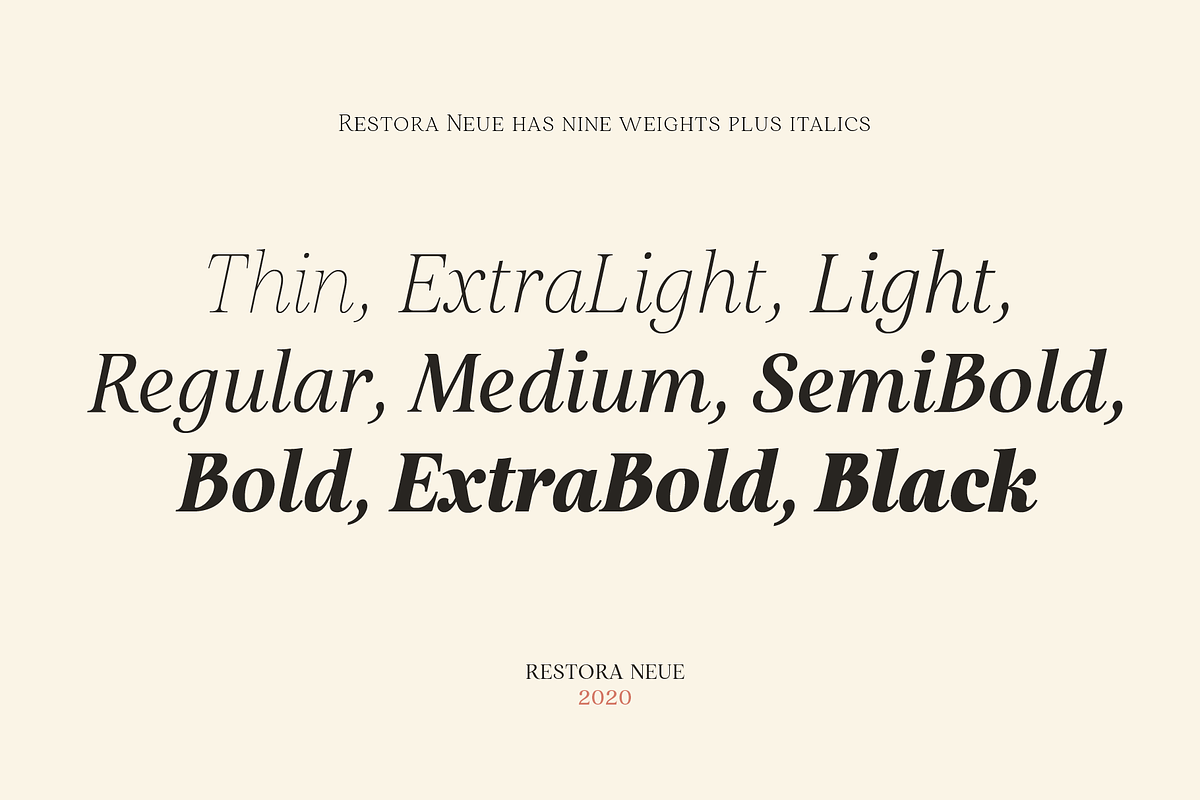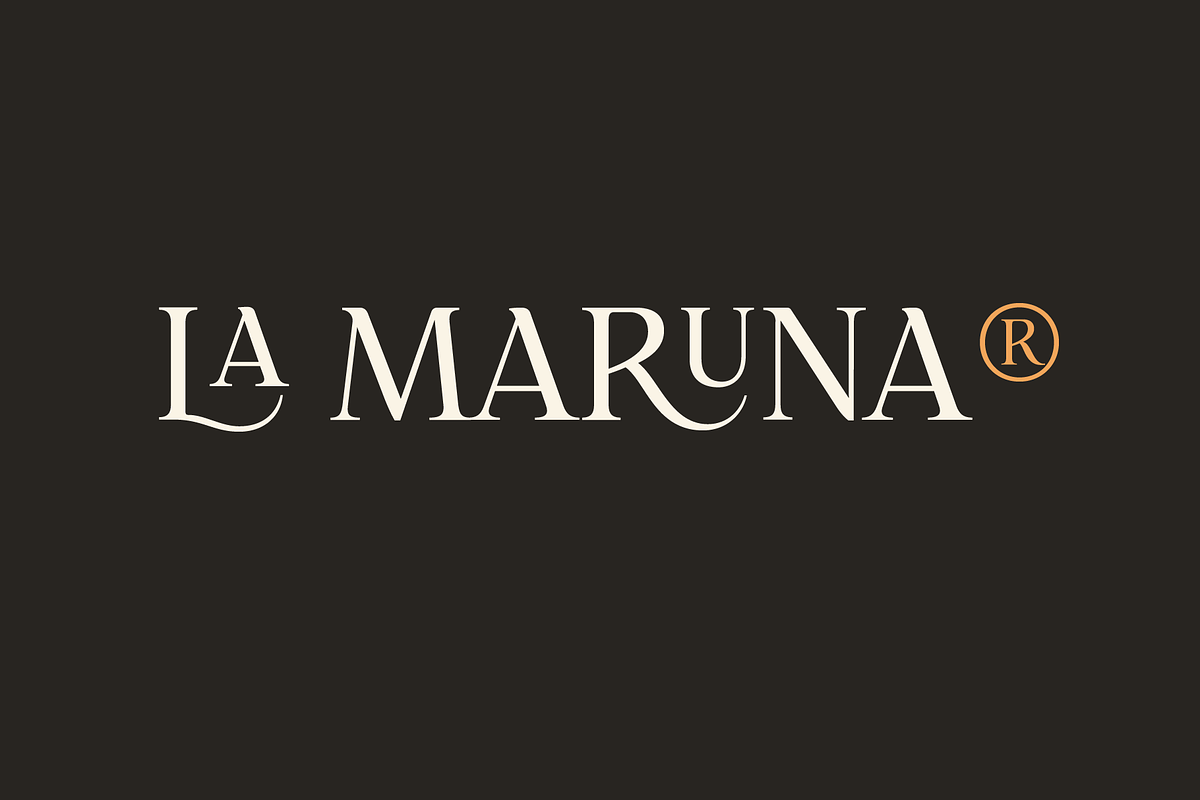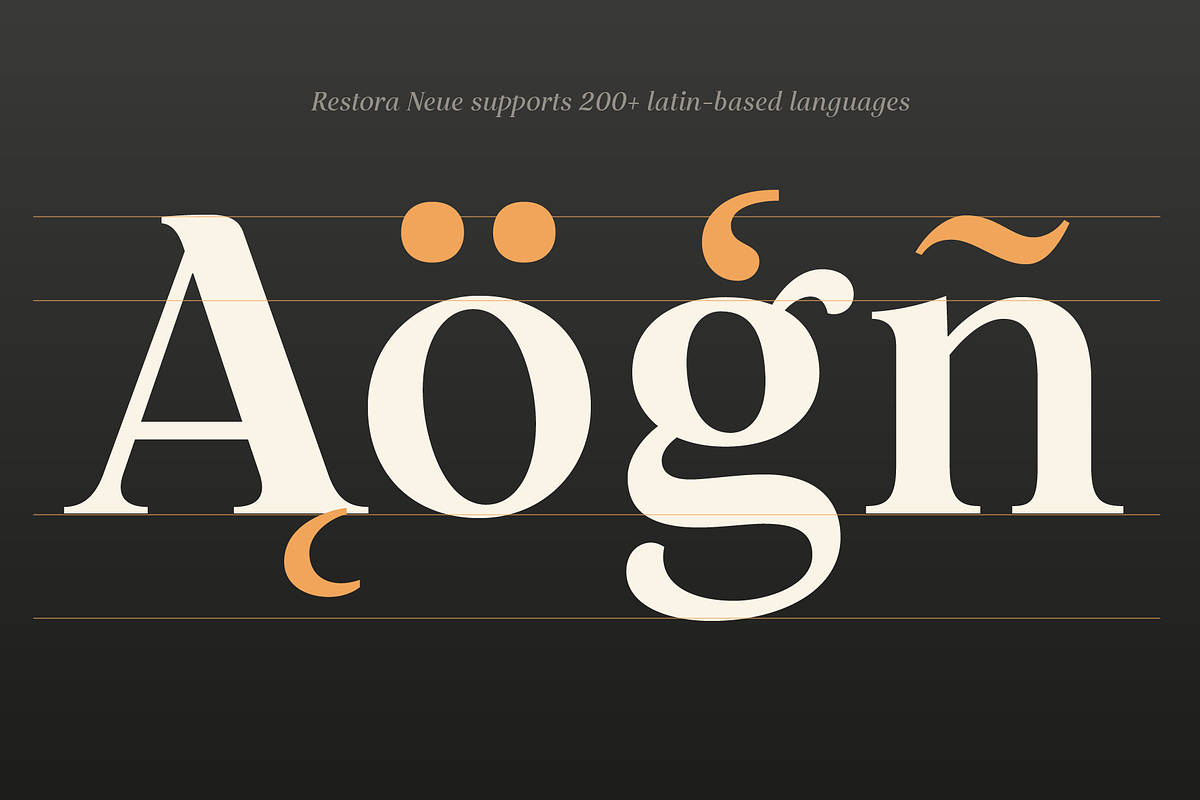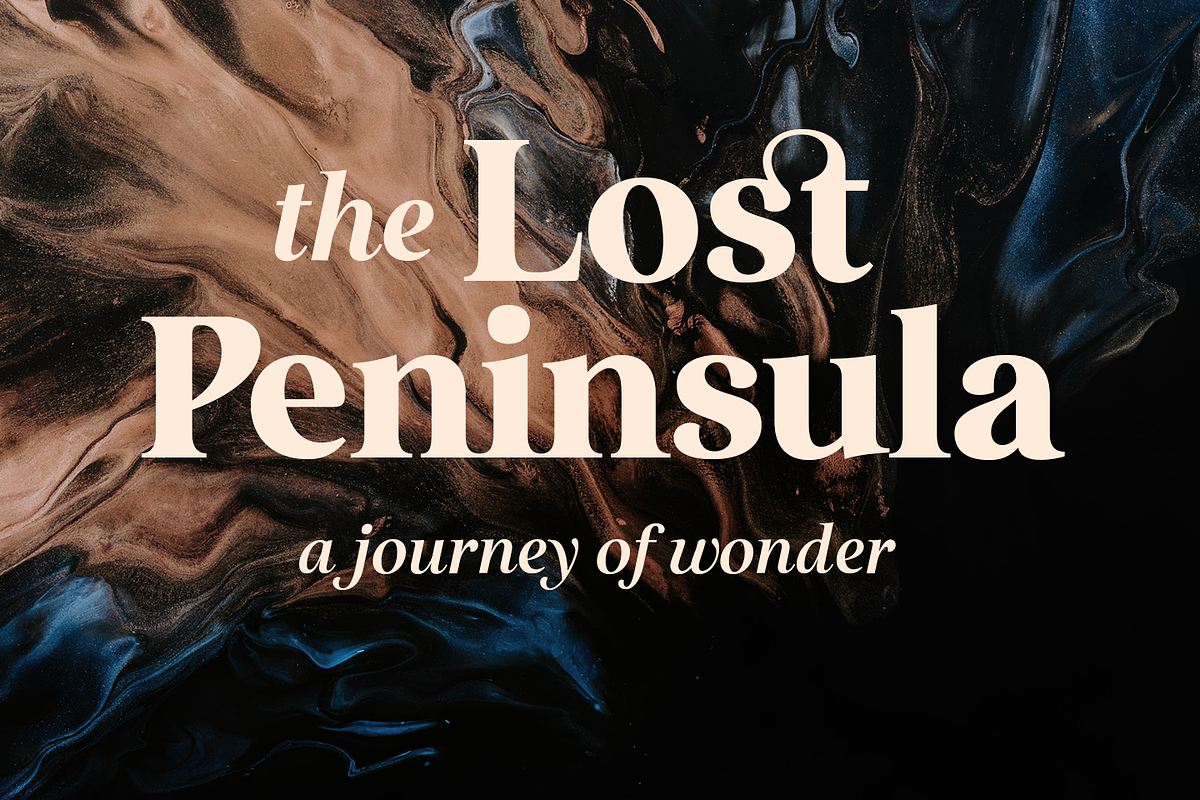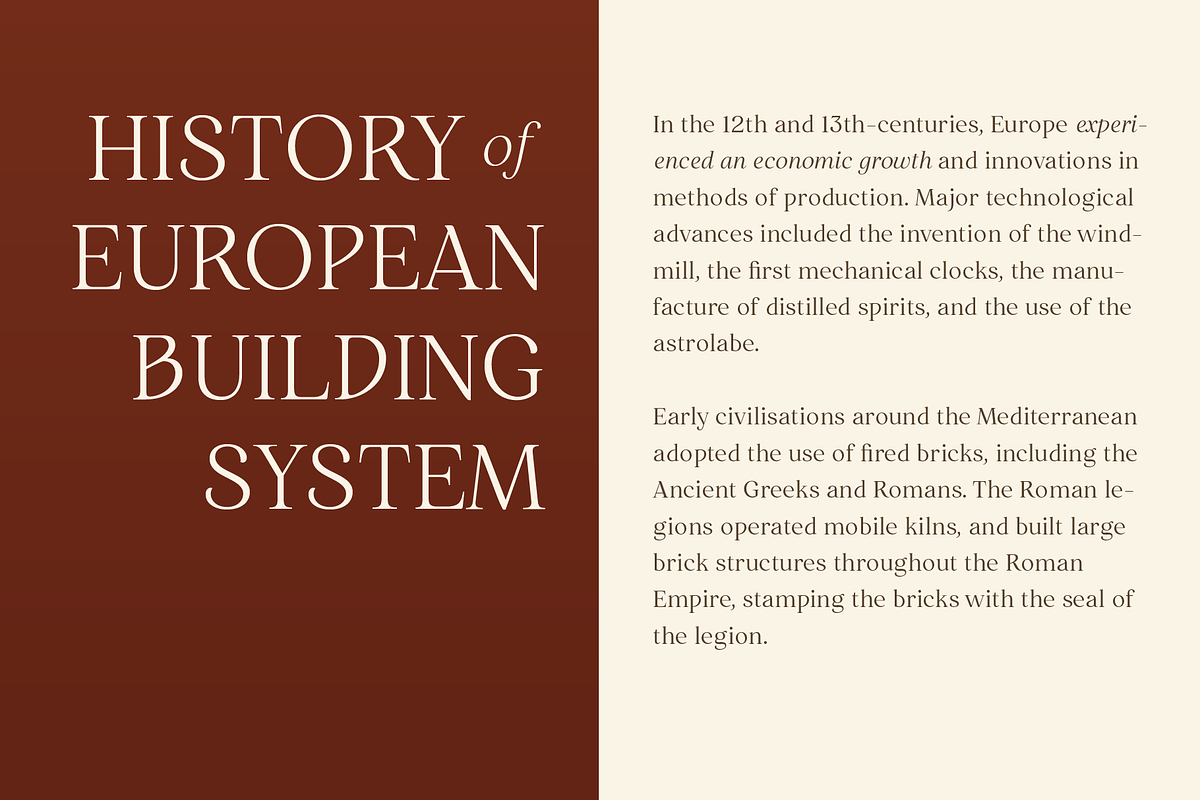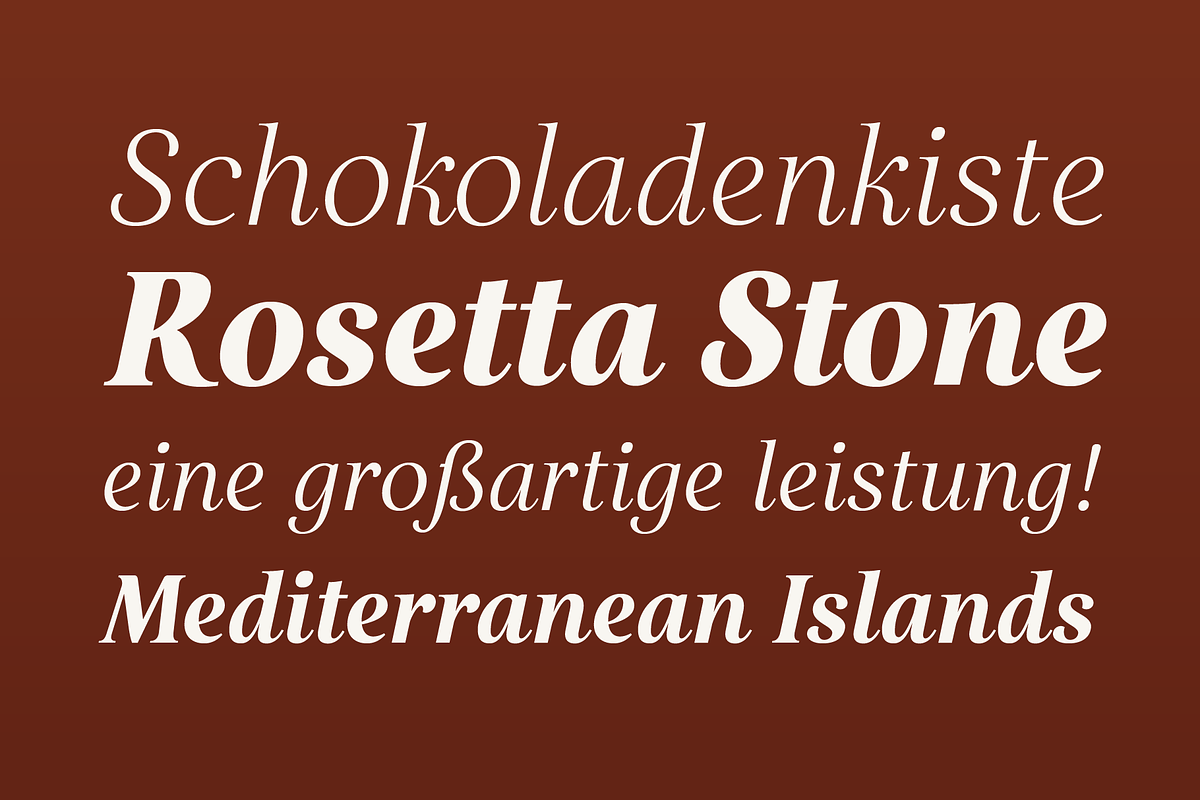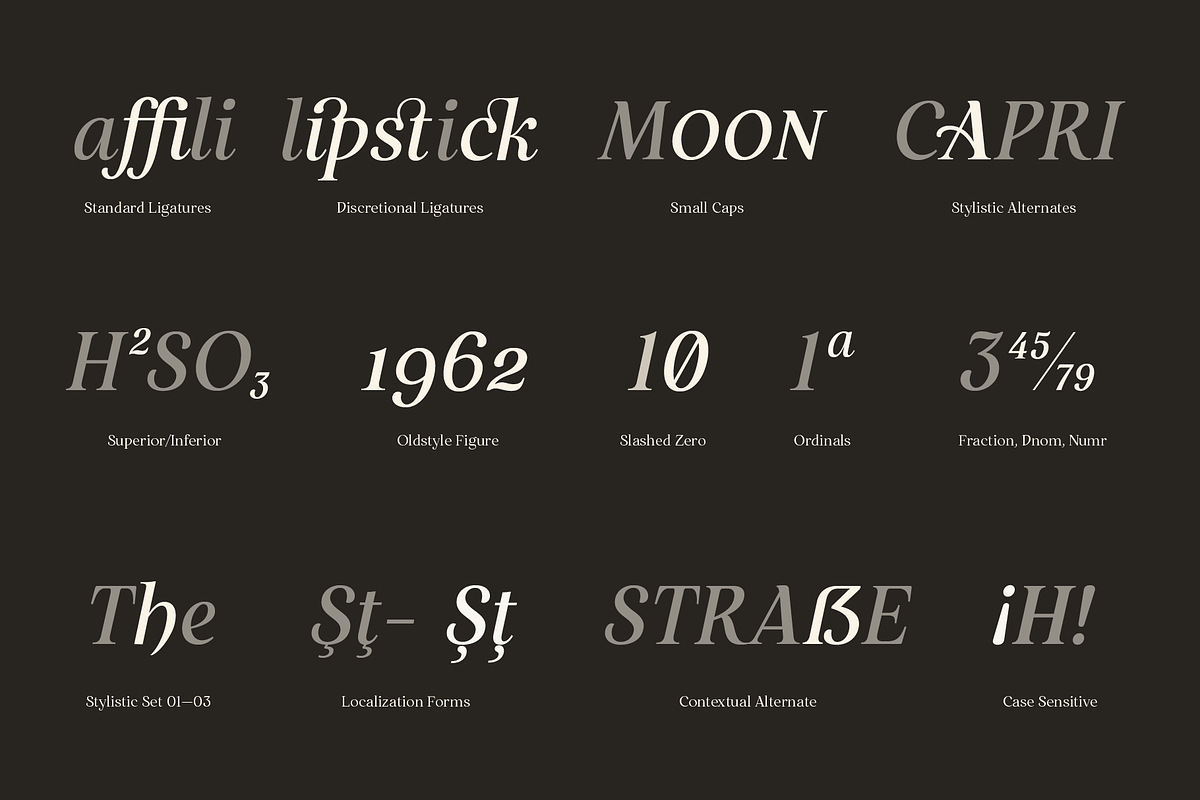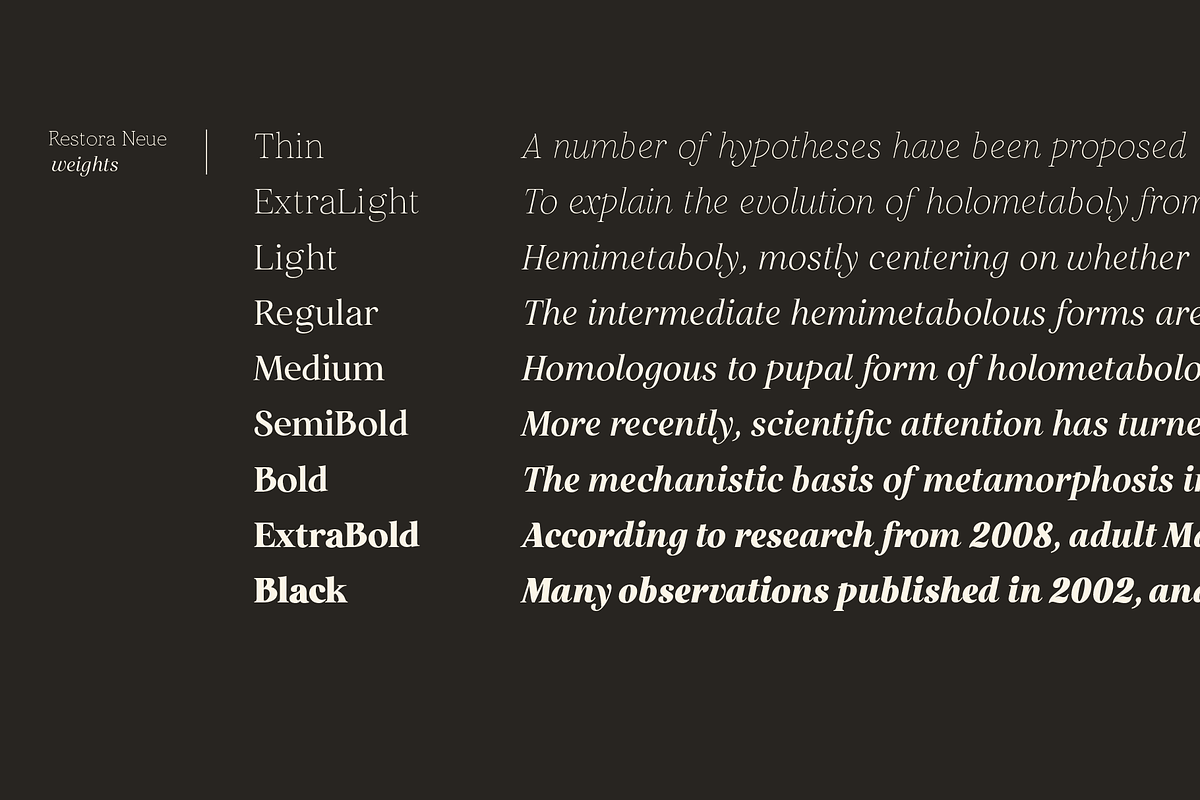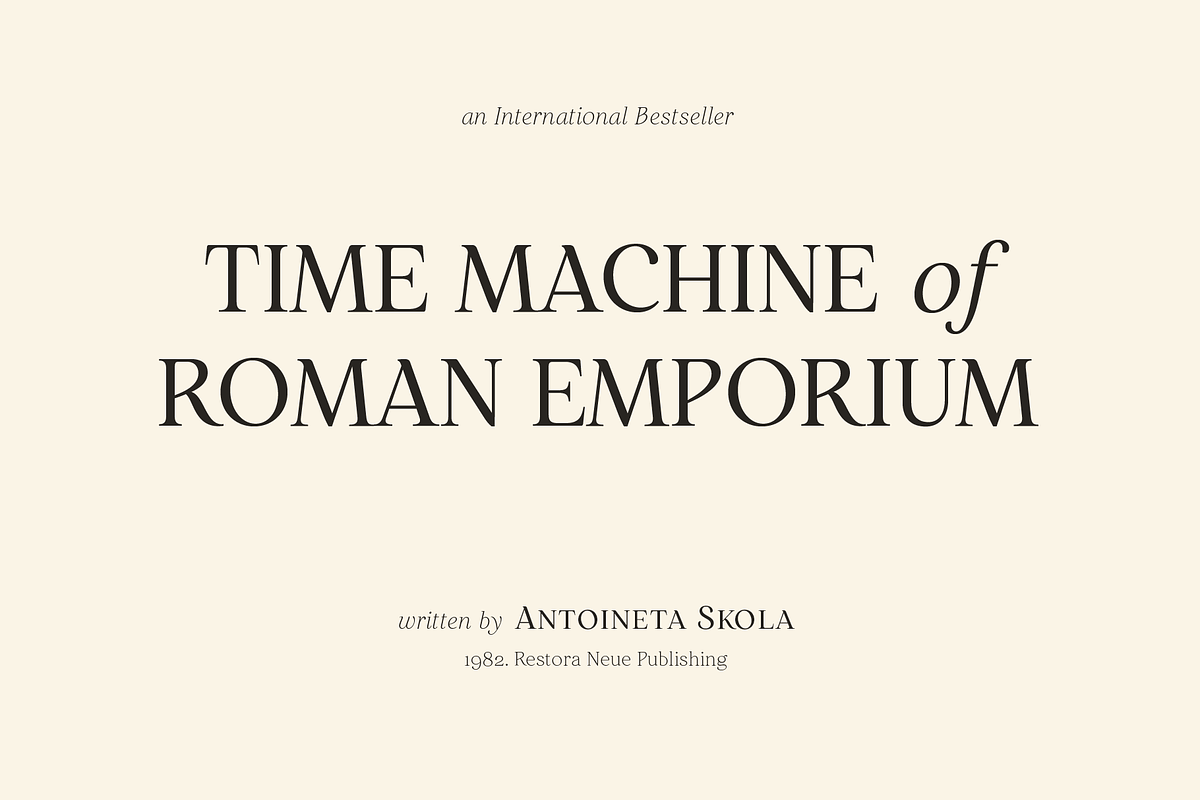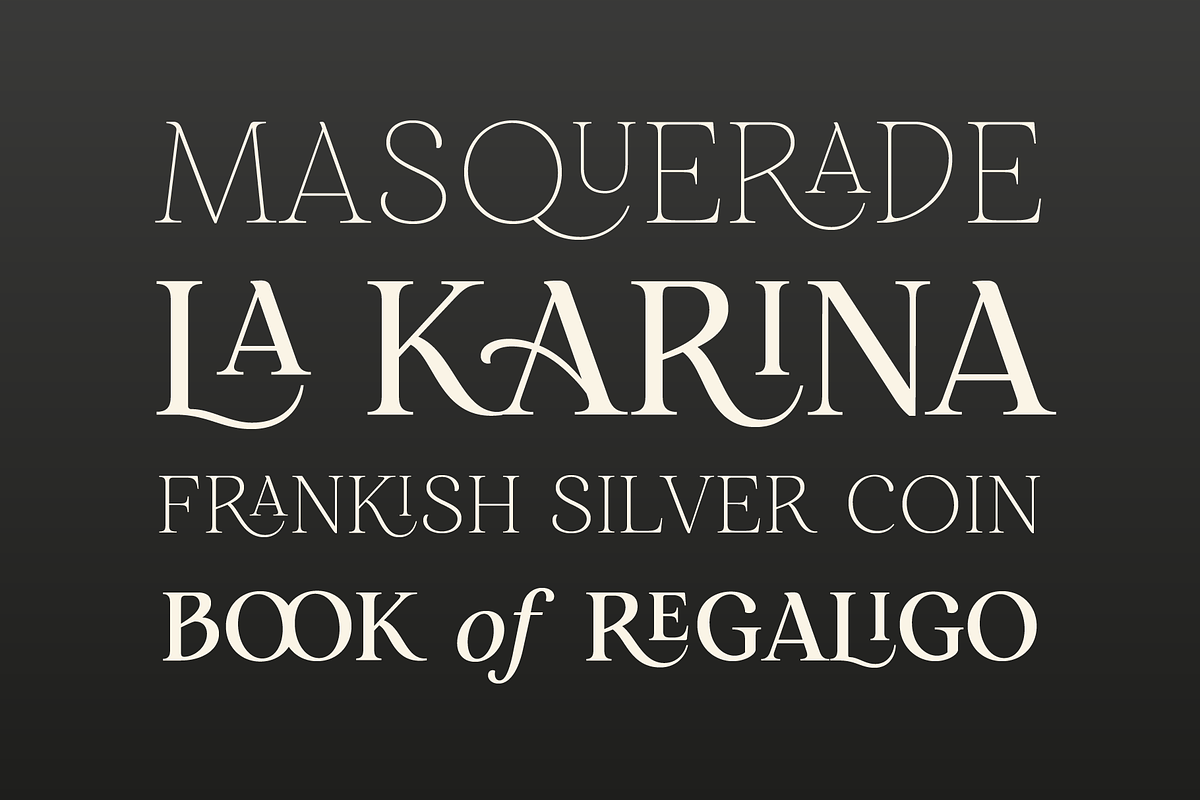
Restora Neue - 18 Fonts
Restora Neue is an evolution of its precursor, Restora. While the Restora has an authentic imperfect letterforms, Restora Neue comes with a neater shape and higher contrast.
It’s a mix of old-style roman serif styles. Its sharp and longer serif with a bit touch of medieval, makes Restora Neue a versatile type family that can be used in many different themes of design projects, from classic style to modern.
It comes in nine weights from thin to black with matching italics. Its mixture of weights provide a wide range of styles that will help you find the best vibe for your projects, for headlines or a short paragraph.
The set of special ligatures and stylistic alternates can be perfect mates for your brand. It is well suited for book covers, editorial, branding, advertising and more.
- Supported Languages: Western Europe, Central/Eastern Europe, Baltic, Turkish, Romanian
- OpenType Features: stylistic alternates, small caps, standard ligature, discretionary ligature, contextual alternate, caps to small caps, slashed zero, numerator, denominator, superscript, subscript, oldstyle figure, automatic fractions